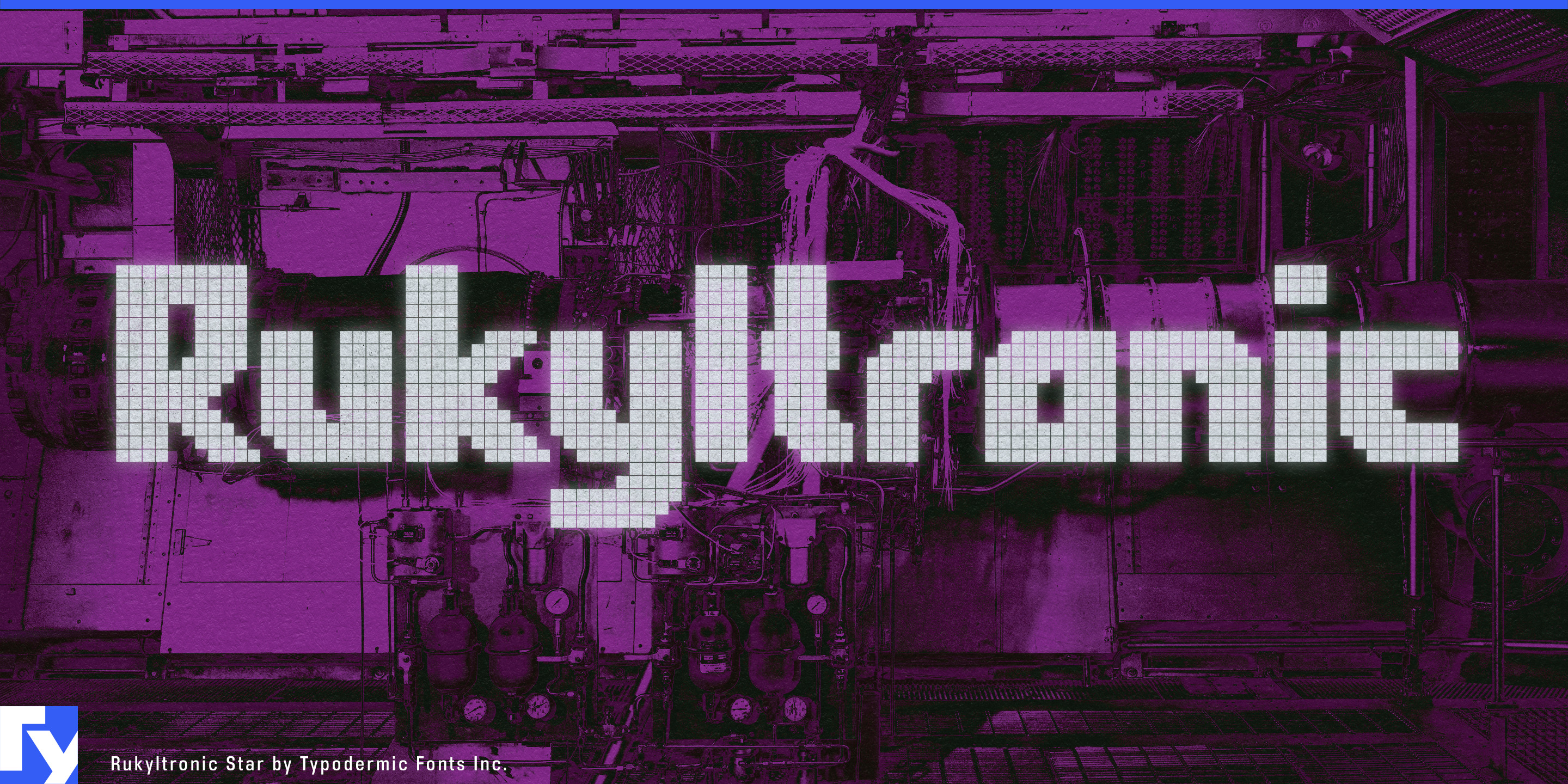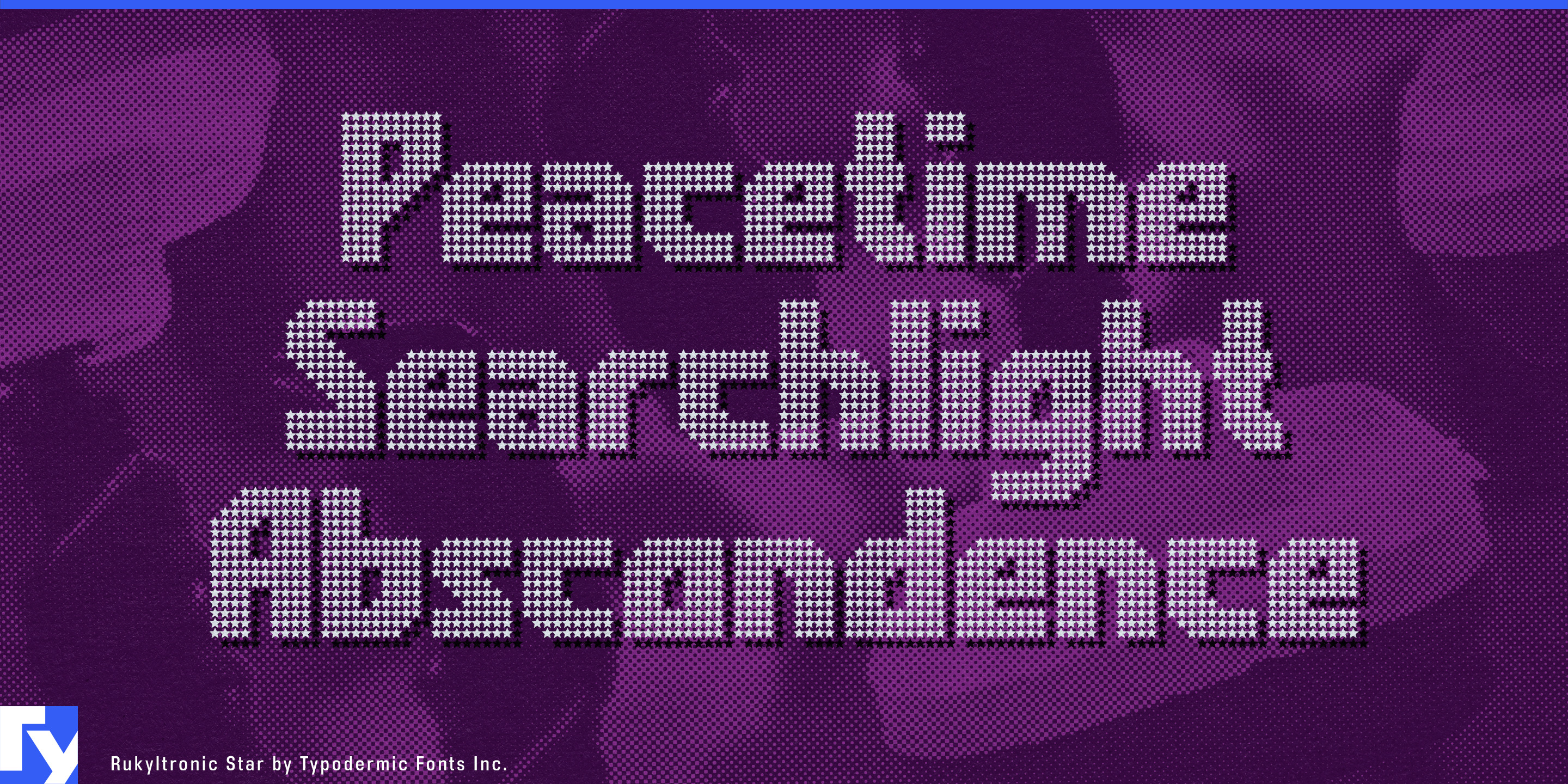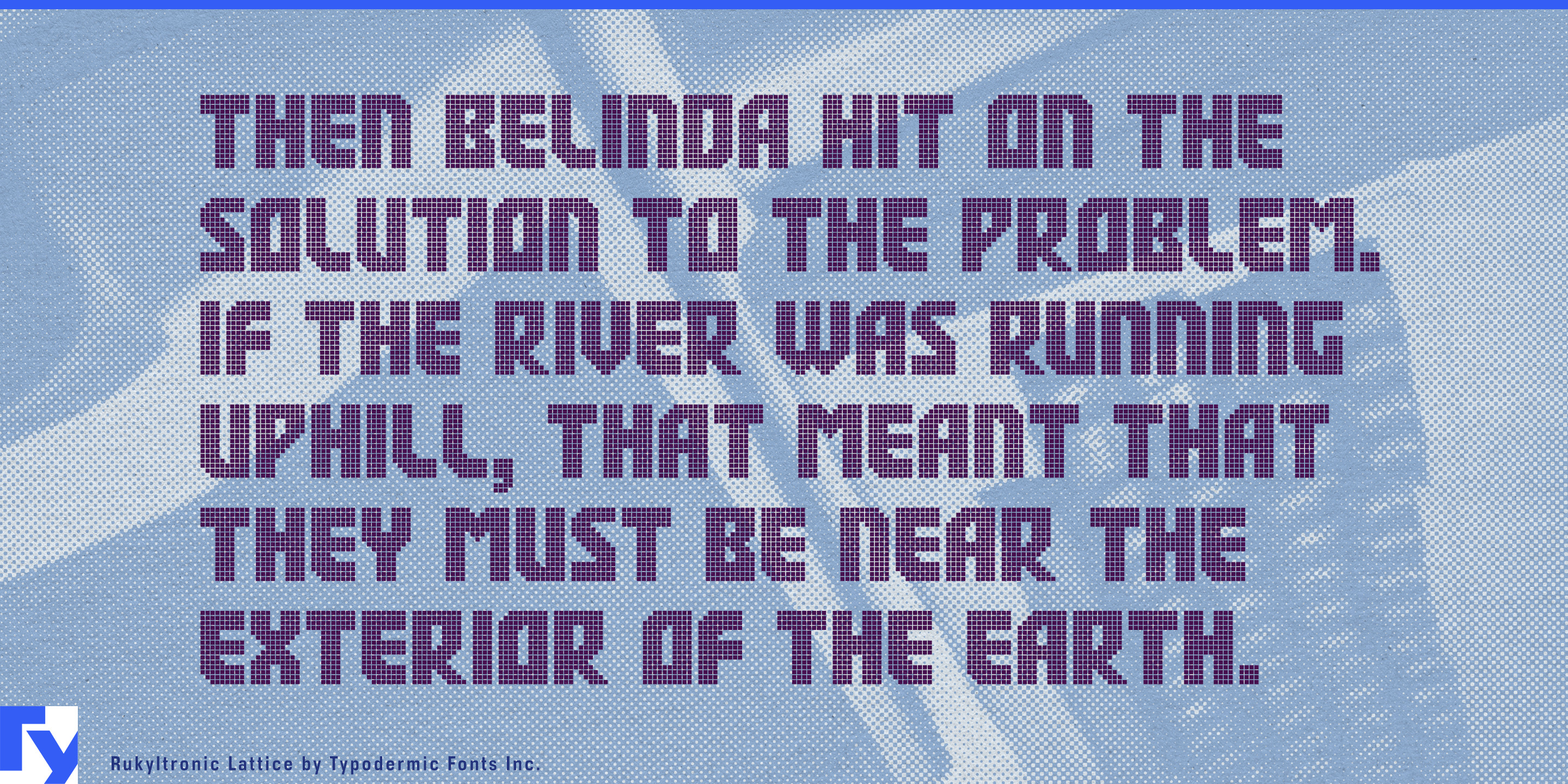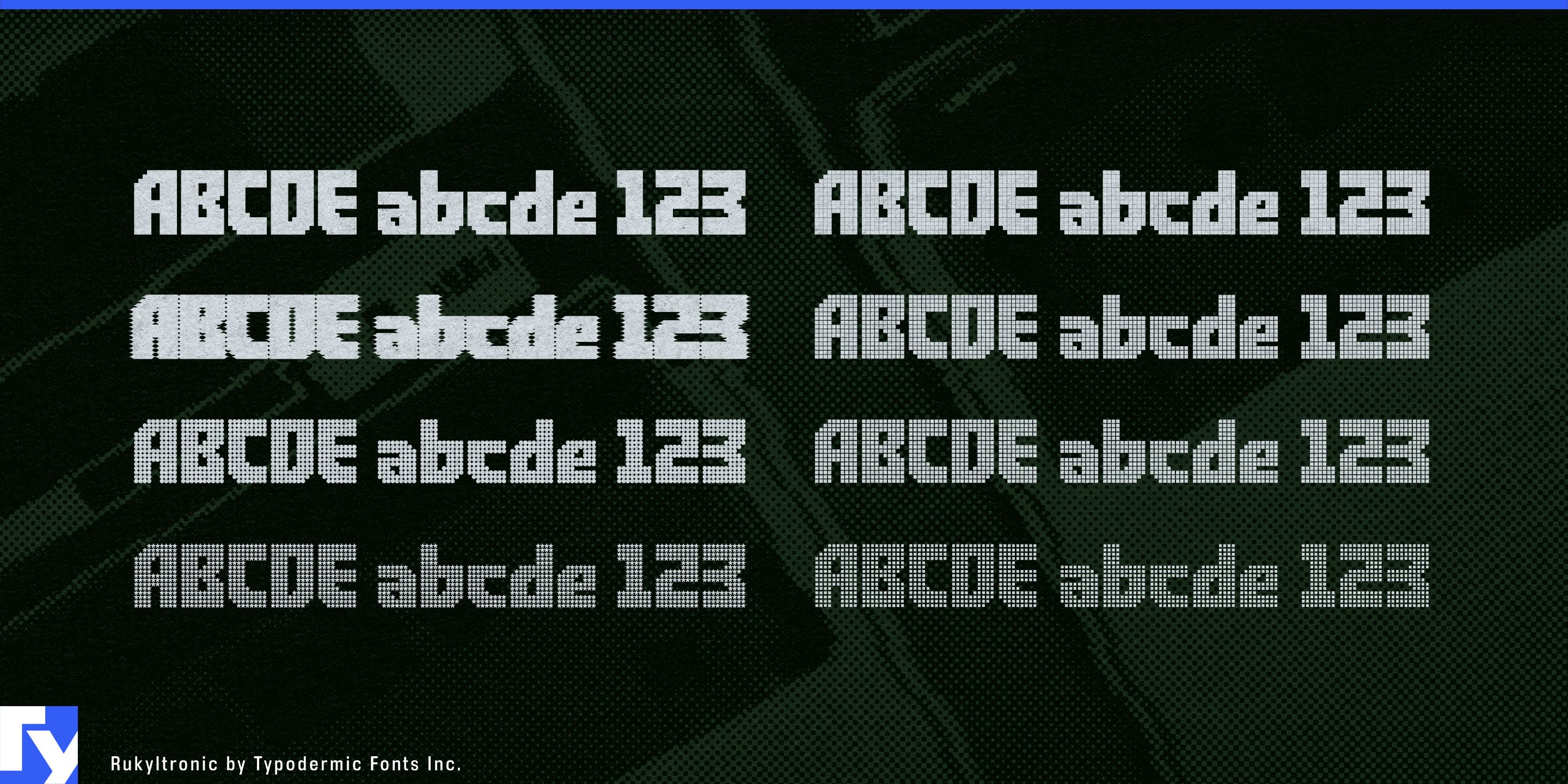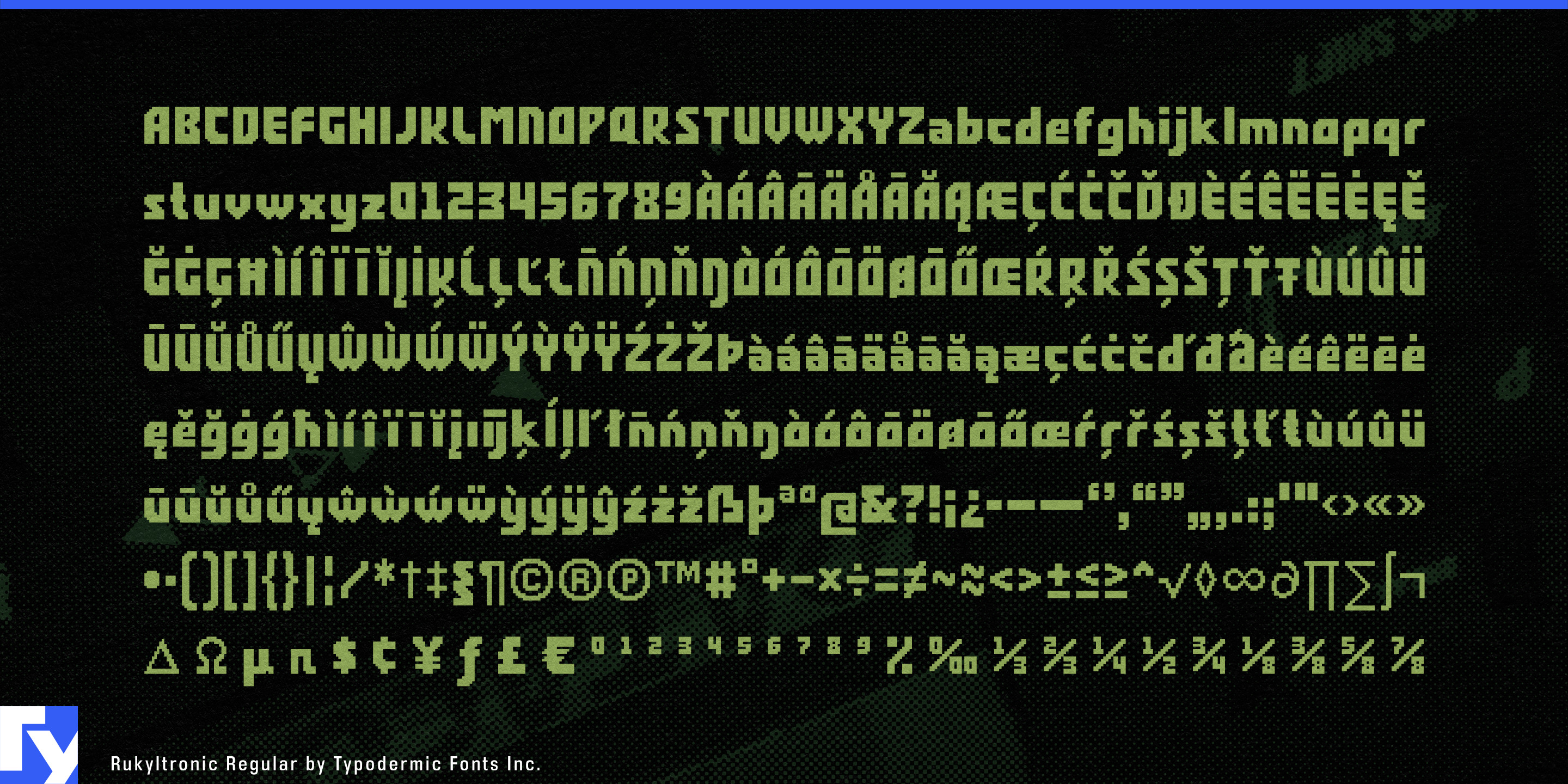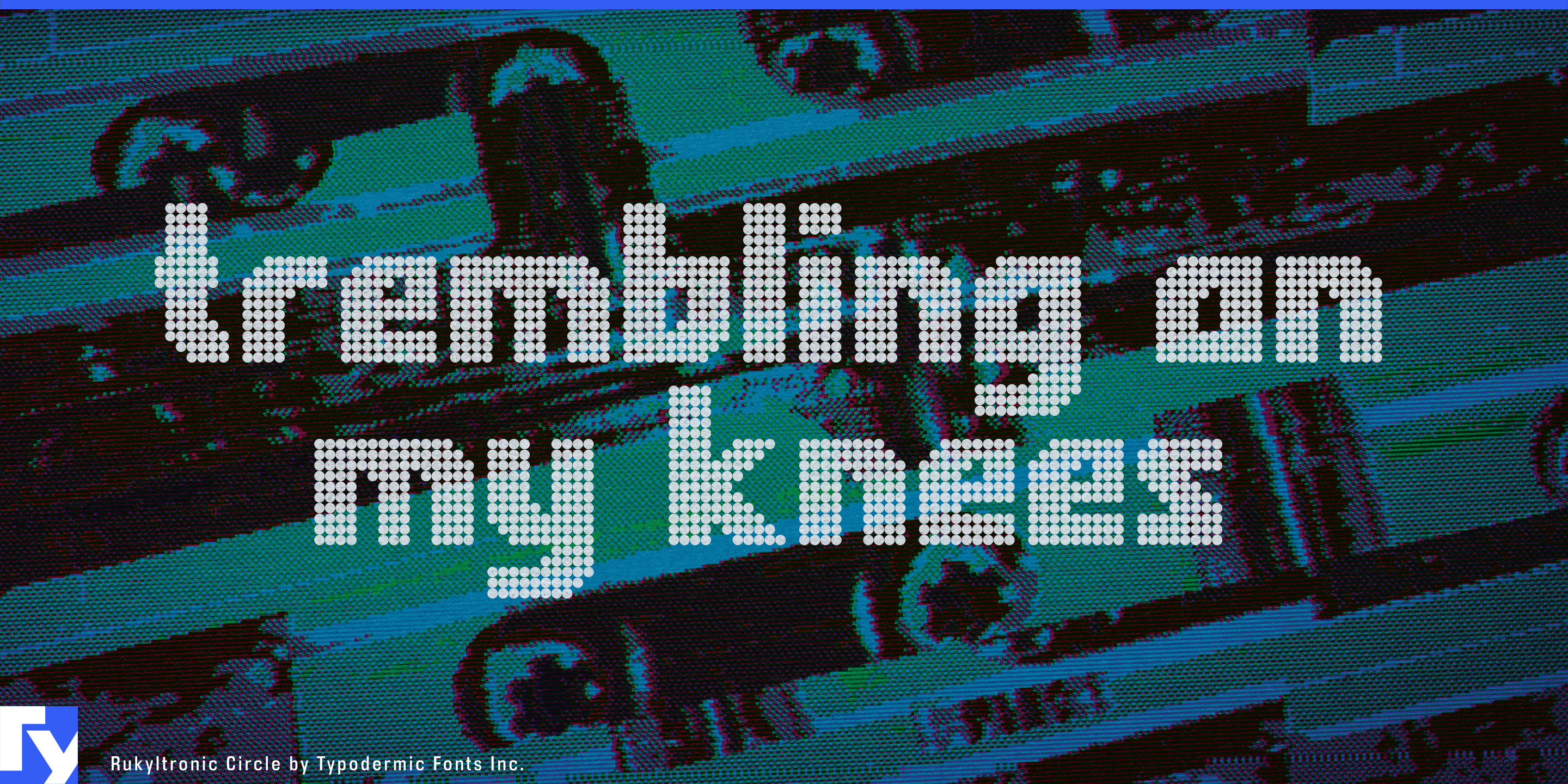
Rukyltronic
Rukyltronic is a pixel-grid typeface with a twist—blocky forms, angled corners, and textured fills that give your design instant digital character. Choose from solid, star, or lattice styles to layer, animate, or mix for dynamic results without ever switching fonts. The variable gaps in each letter add texture and personality, giving it a lo-fi tech edge that works in both print and on screen.
This isn’t just for nostalgia—it’s for anything that needs bold, unmistakable visual energy. Build a game interface that feels alive, design esports team branding that punches through the noise, or create striking posters for music festivals and tech conferences. Use it on STEM education materials, coding workshops, or packaging for electronics and gadgets. Its strong pixel rhythm keeps text legible at small sizes, while its bold forms dominate headlines and titles.
With wide Latin language coverage, Rukyltronic lets your pixel art style speak across borders. From video game menus to T-shirts, stickers, or stage backdrops, this is a grid-built workhorse for the pixel age—whether that’s 1984 or tomorrow.